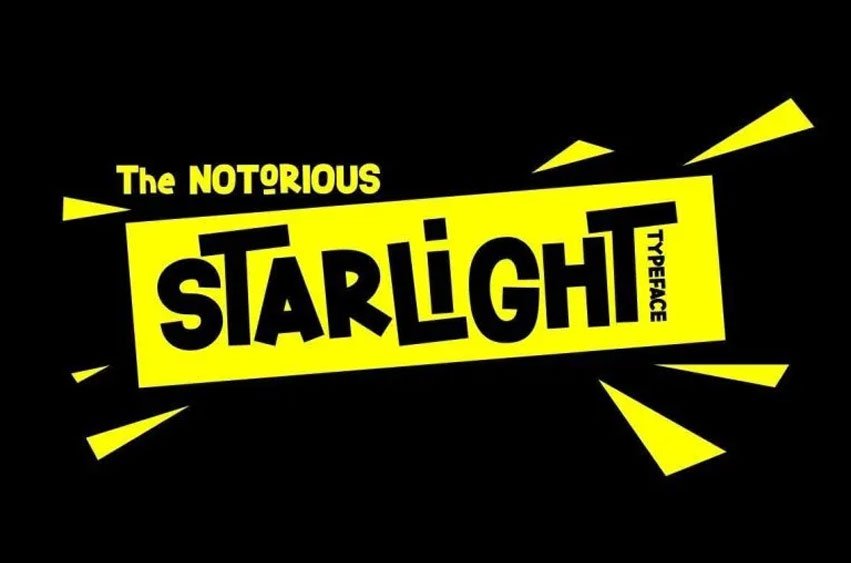
Starlight Typeface Font
Starlight Typeface Font All animation movie creators need Starlight as their perfect typeface option when they want to inject excitement into their projects. The edgy and playful sans-serif design of this font makes it an excellent choice for children-oriented projects as well as comic books and YouTube videos and many other applications. The dramatic design of Starlight font suits powerful character logos and summer slogans as well as dramatic posters because its letters stand out as true highlights that will set your work apart from others.
Starlight font for movies stands as a perfect selection when you want to develop powerful designs that include both personality character and enthusiasm. The child-oriented font serves to brighten any project which needs playful or humorous elements because it appears in t-shirts and cards.